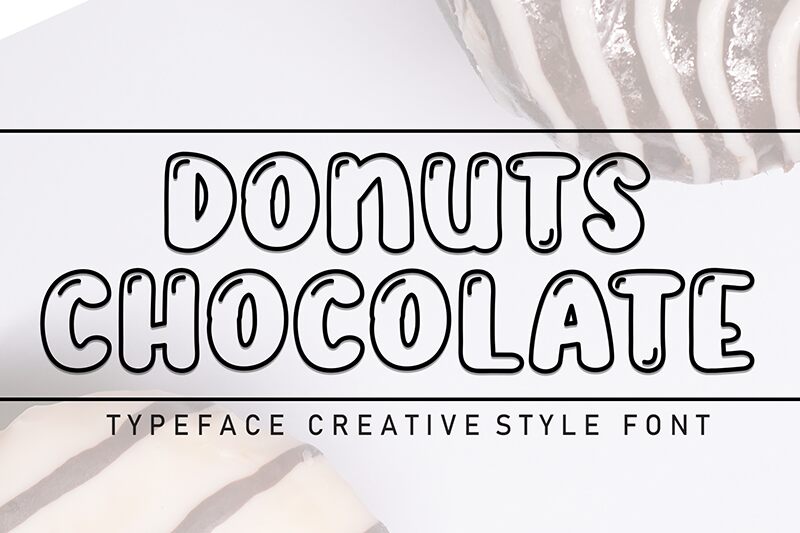
Donuts Chocolate font is another font from Andi Moz with an artistic cartoon appearance suitable for various informal projects. Each of the curves contained in both the upper and lowercase characters has a unique round edge that ensures a consistent appearance from one character to another. The font delivers a cheerful and inviting feel best used in settings when a casual mood is to be delivered.
Potential uses of this font include packaging, labels, wall art, posters, printouts, and children’s book covers. The same visual style permissions can be replicated on social media post designs, greeting cards, logos, postcards, and illustrations.
This is a charming and approachable handwritten display font. Cute and fun, this font is perfect for creating wedding invitations, cards, or any design that requires a playful touch!